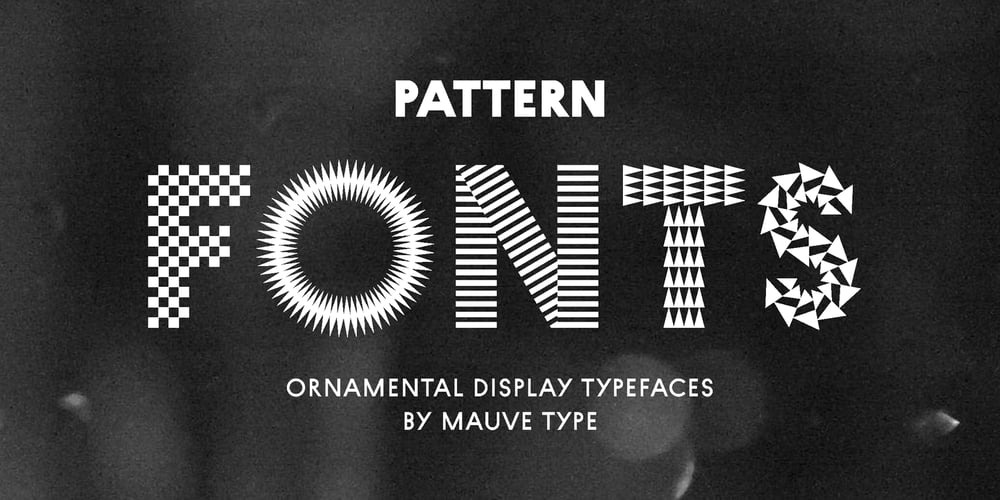
Pattern Font Family was designed by Eike Dingler and published by Mauve Type. Pattern contains 37 styles and family package options. The Pattern Project is an ornamental display type family. It is inspired by medieval initials and transforms their mesmerizing rhichness of detail into cool state-of-the-art typography. All letter shapes and patterns are exclusively geometric, providing a very distinct and contemporary feel. Pattern is the new sexy – perfect for vodka labels, record sleeves and posters. For editorial design and packaging. With a special typographic impact. Some practical details: – Family consists of 9 diverse patterns + a blank version. – 3 weights available. – As with patterns in general: It is quite essential how far you zoom in to change the graphic impression. 3 pattern resolutions (Coarse, Medium + Fine) allow varying the pattern size independently from the font size. – Each pattern comes with diverse weights and/or pattern resolutions. – Use in display sizes only. The bigger – the better! – Fine pattern resolutions require even larger font sizes than coarse resolutions. – Fonts gain kind of ʺtransparencyʺ through the patterns – handy for use on top of images. – Characterset is caps only and supports Central, Eastern and Western European languages. – Entertaining 2 min movie explaining the basic concept: youtube.com/watch?v=wbuUkRDApzs